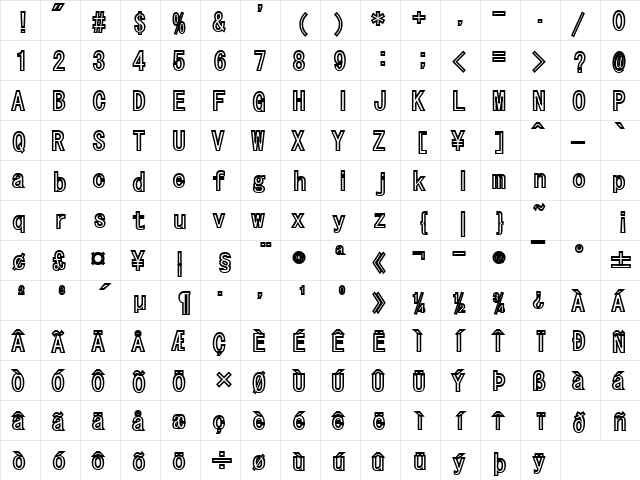
SD Viewer Edge Font Regular
Design Context for SD Viewer Edge Font Typeface
SD Viewer Edge Font offers clean, dependable letterforms without strong stylistic allegiance, making it a practical choice for designers who need flexibility.